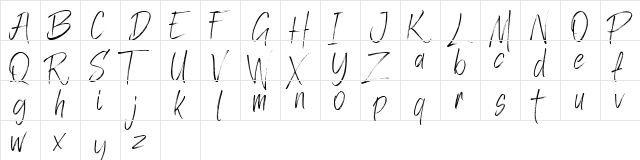
Zolanti Regular
Design Context for Zolanti Typeface
Zolanti is a composed and adaptable typeface that performs quietly and consistently across a wide range of design contexts.